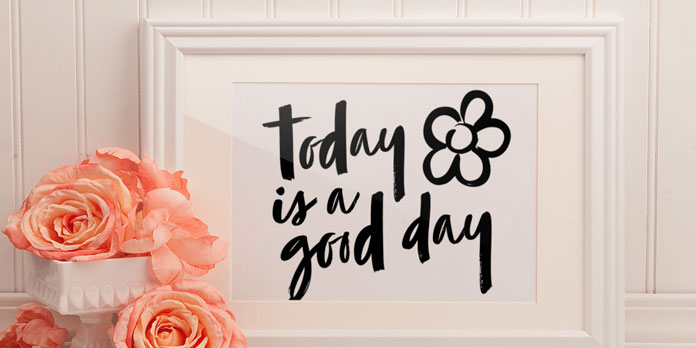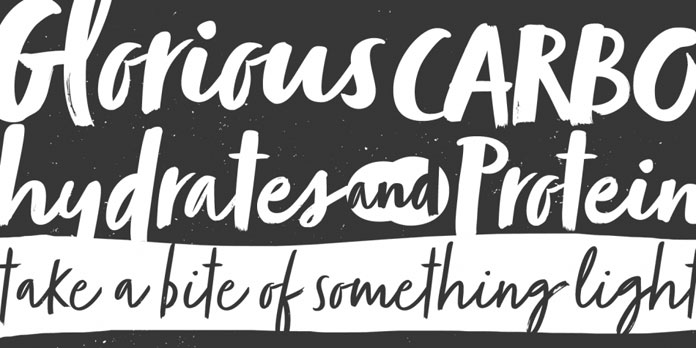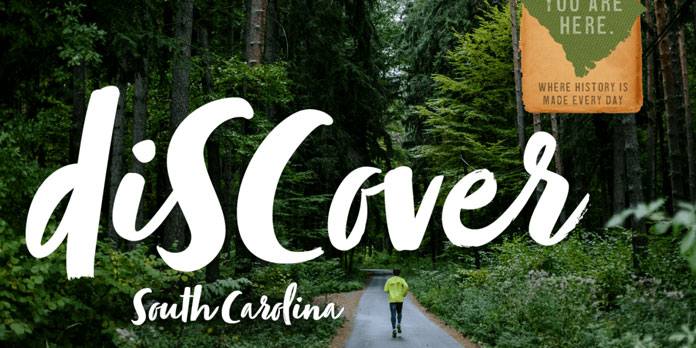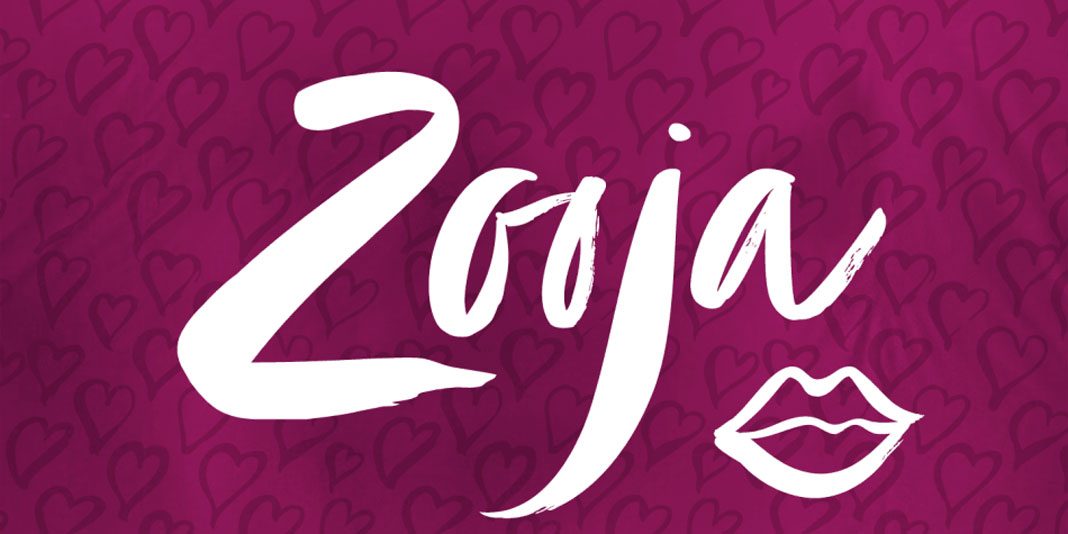
Zooja, a trending brush script font in two weights plus lots of dingbats and catchwords.
Designed in 2016 by Stephen Miggas for foundry Aerotype, Zooja is a new brush script font that comes in two weights (light and regular) as well as lots of catchwords, banners, patterns, illustrations, and boarders. Furthermore, the typeface is equipped with numerous OpenType features including ligatures and alternative characters for all capital and lowercase letters. The set of elements and borders is filled with more than 90 decorative dingbats. The banners and patterns collection includes 17 repeatable graphics as well as over 50 frames. With more than 60 handwritten catchwords, the Zooja typeface is a great choice for a wide range of typographic work. For additional information on all features and buying choices, feel free to follow the link below.